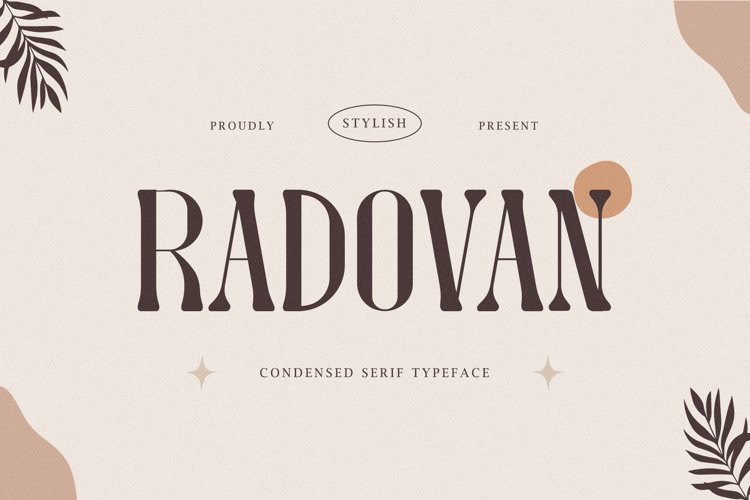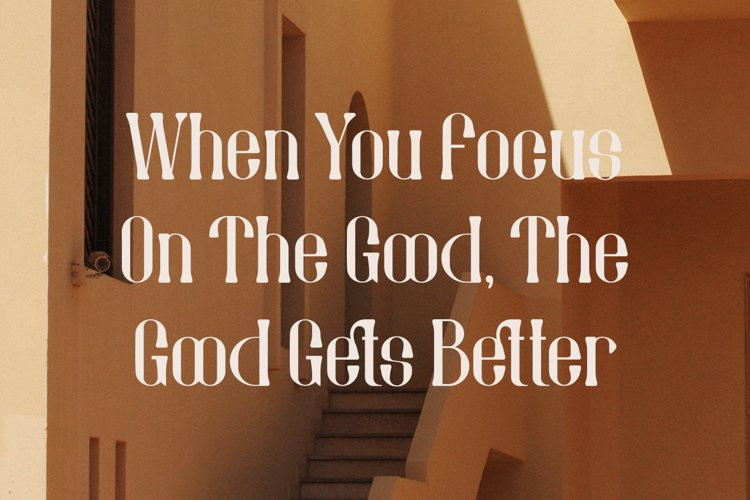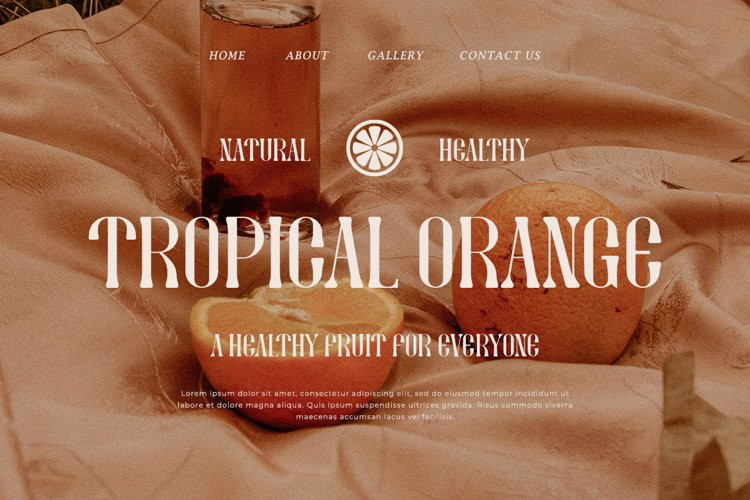
Radovan Font
Radovan FontRadovan Condensed Serif font is perfect for your up coming projects.
Such as luxury logo and branding, classy editorial design, woman magazine, cosmetic brand, fashion promotional, art gallery branding, museum, historical of architectural, boutique branding, stationery design, blog design, modern advertising design, card invitation, art quote, home decor, book/cover title, special events and any more.